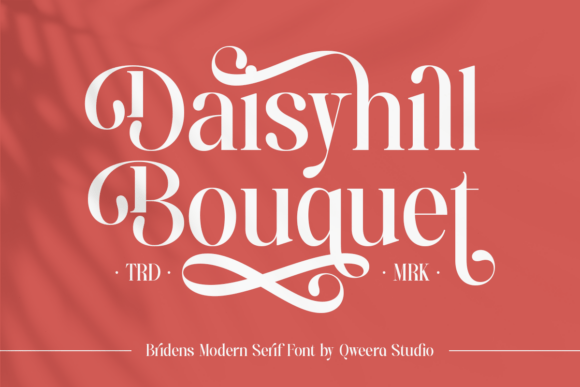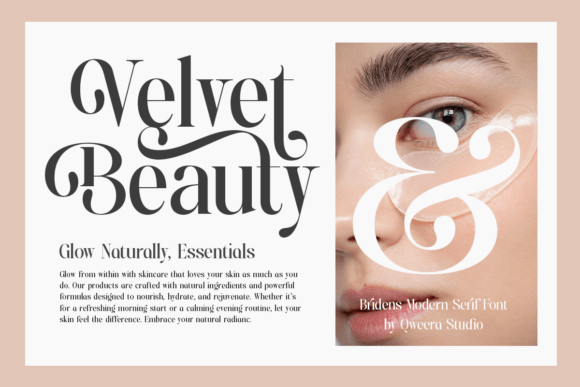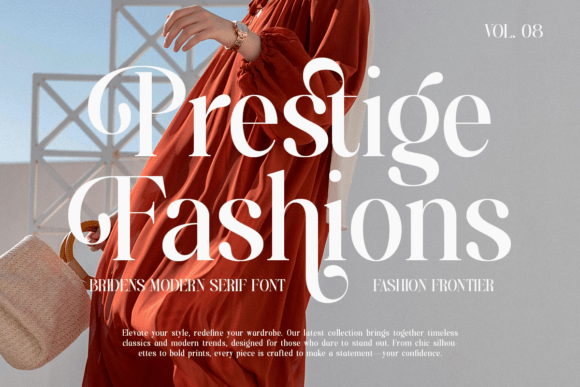
Bridens Font
Bridens is more than just a font—it’s a statement of modern elegance and versatility. With its Regular and Italic versions, Bridens offers a wide range of creative possibilities, making it the perfect choice for branding, editorial design, web typography, and any project that demands a bold, elegant touch. Whether you’re crafting a sleek logo or designing a standout editorial layout, Bridens ensures your work radiates sophistication and timeless appeal.